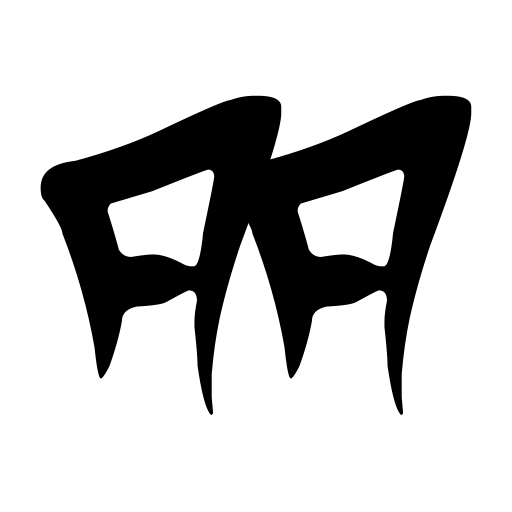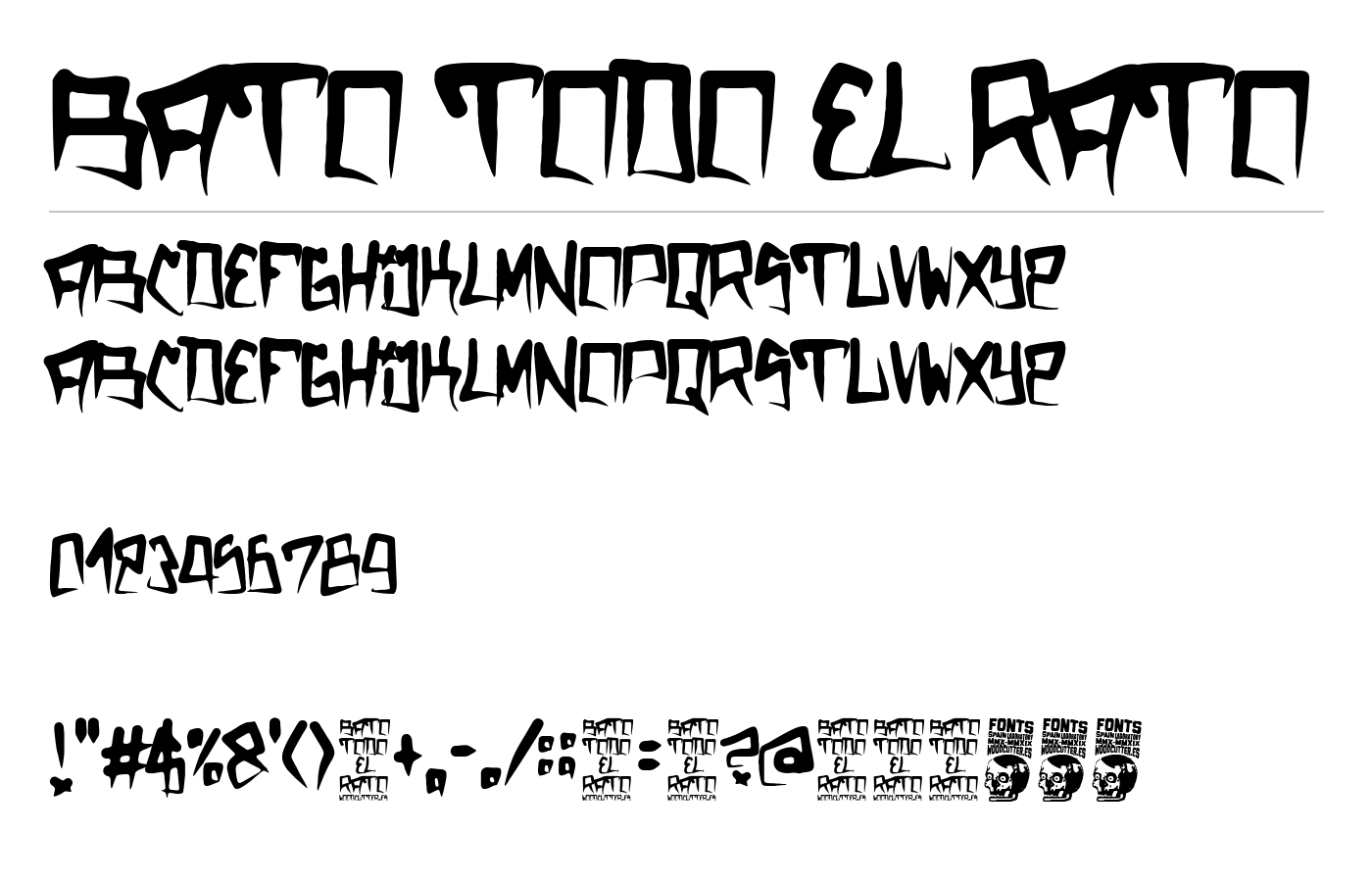
Bato todo el Rato is a bold, condensed, and highly stylized sans serif font characterized by sharp, edgy strokes and an irregular, graffiti-inspired aesthetic. Its distinctive letterforms, with angular shapes and unique, aggressive details, convey a raw, urban, and rebellious vibe, making it ideal for streetwear branding, posters, music covers, and edgy editorial designs that seek a strong, unconventional personality.
Bato todo el Rato Font
About Bato todo el Rato Font